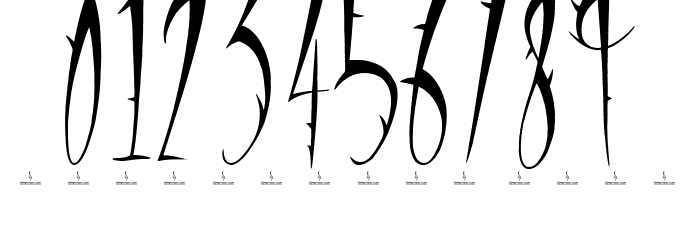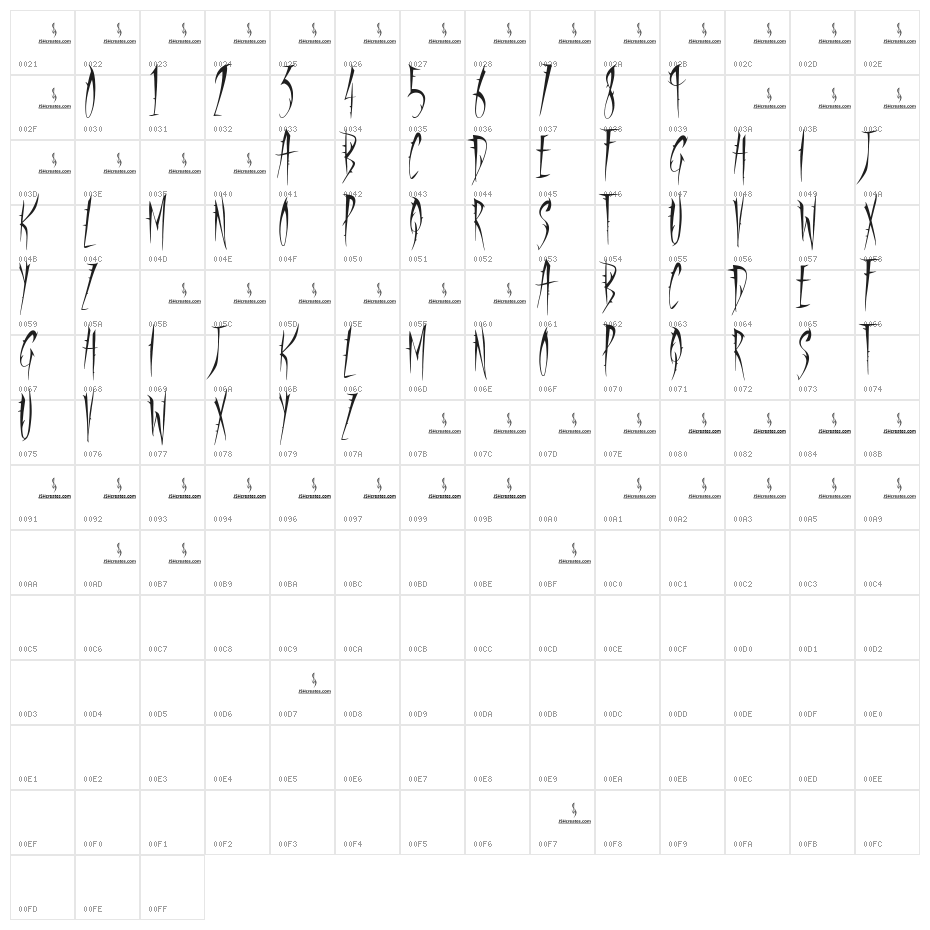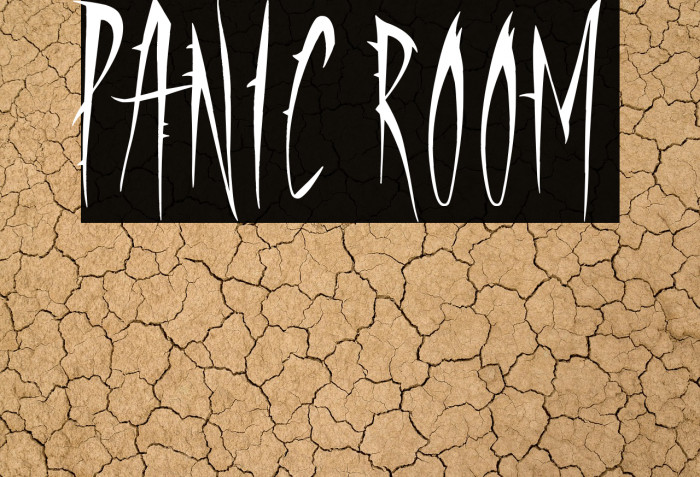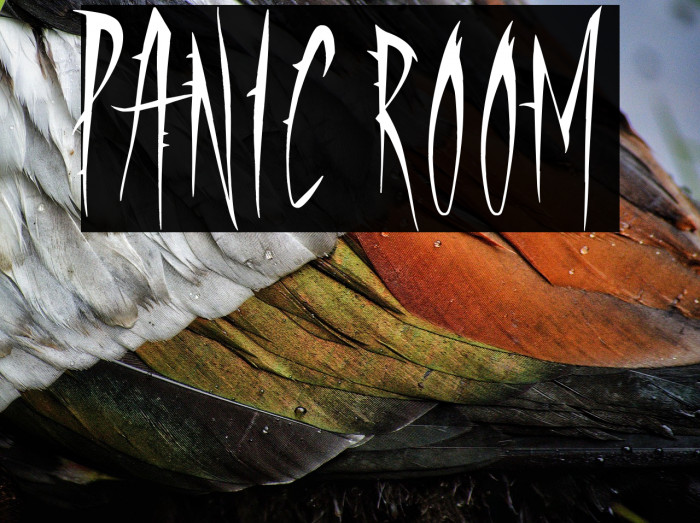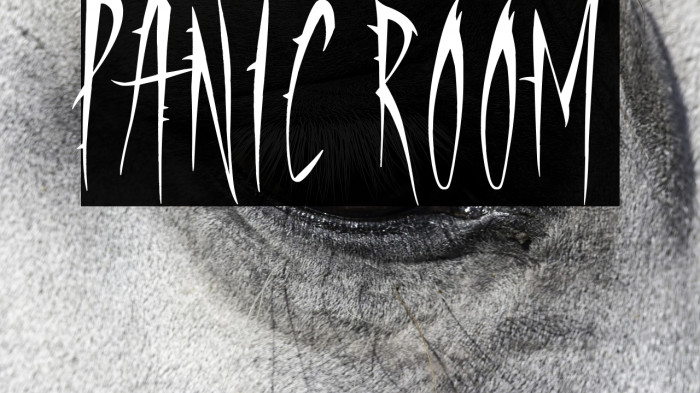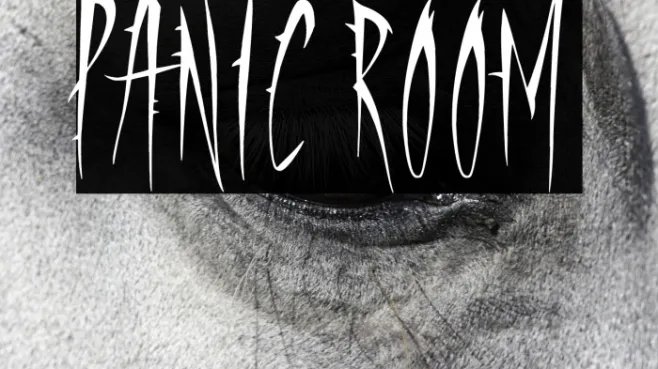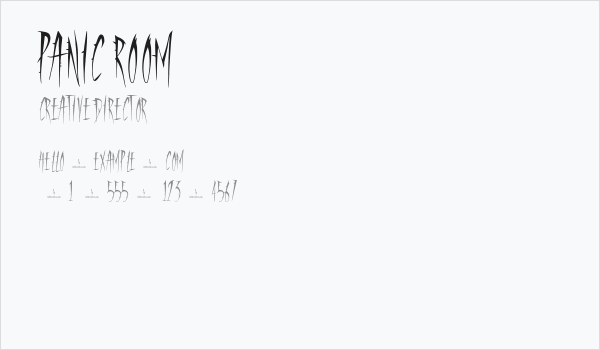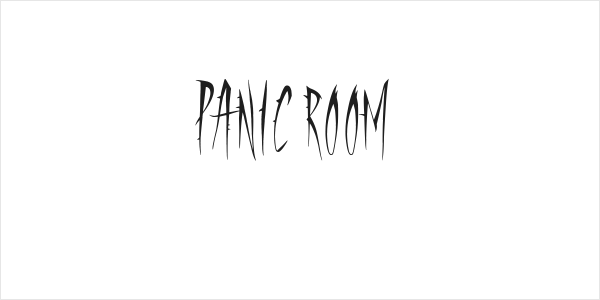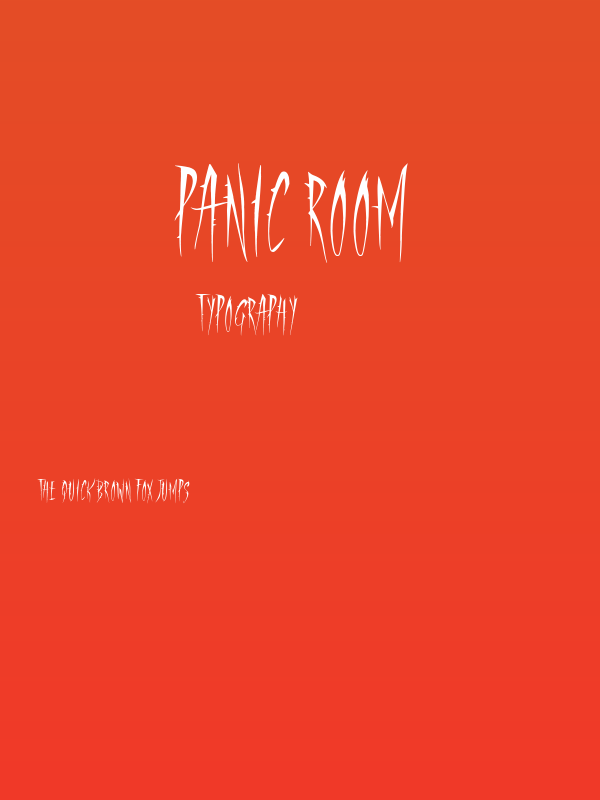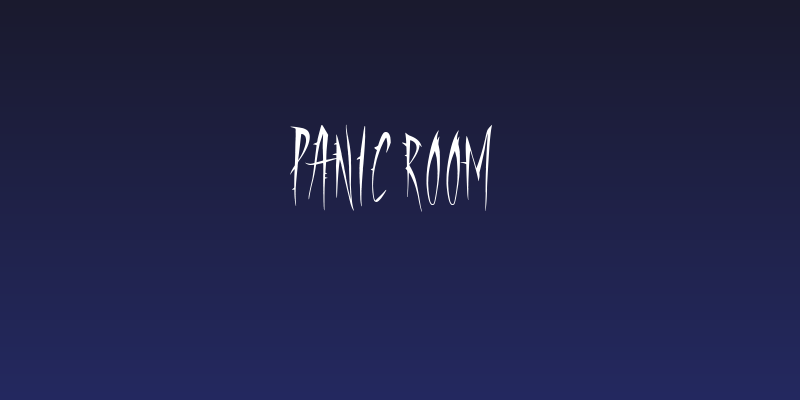
Panic Room Font
Panic Room Description
This font features a dramatic and edgy design, characterized by sharp, thorn-like extensions and elongated strokes. The letters have a jagged, almost menacing appearance, with a high level of detail that suggests a sense of urgency or danger. The overall aesthetic is reminiscent of horror or thriller themes, making it ideal for creating a tense or unsettling atmosphere. The numerals and special characters follow the same design principles, ensuring consistency across all elements.
| Use Case | Headlines, Posters, Logos |
| Proposed Projects | Perfect for horror movie posters, Halloween event flyers, or any project requiring a tense, dramatic aesthetic. |